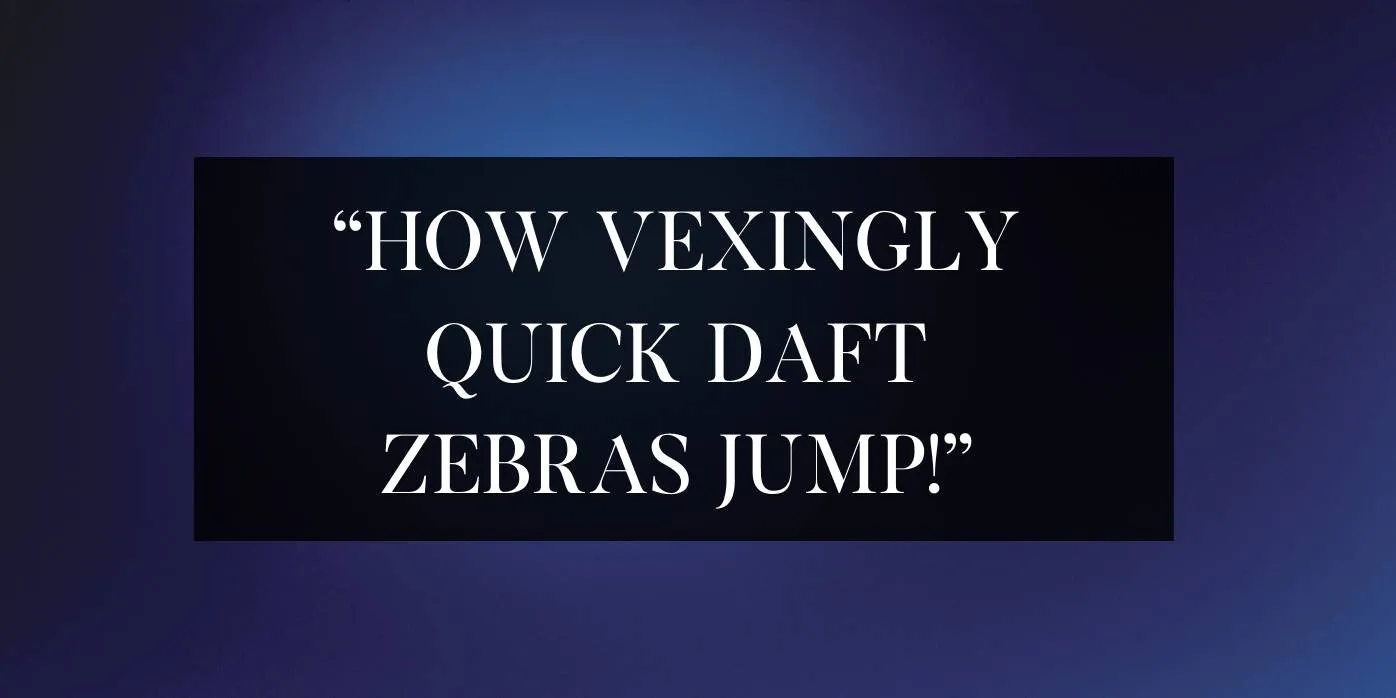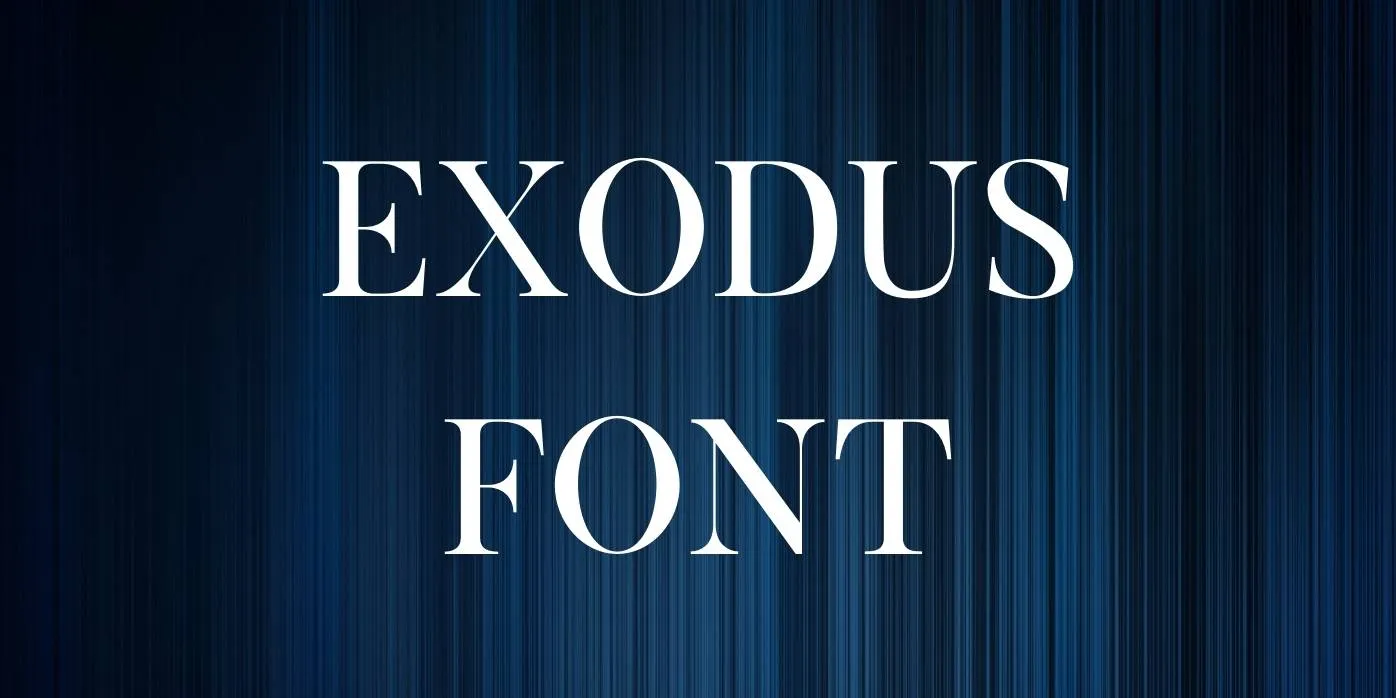
Exodus Font
Exodus Font is very popular and famous in the design industry. It belongs to the Serif typeface. This cozy typeface was designed by Mr. Andrew Herndon.  The first time it was released was on 5th February 2016.
This typeface has a large X-height that makes it perfect for various designs. The best part about this font is that it’s free for both personal and commercial use. This means that you can use it for your website, blog, or even for designing purposes. This stunning typeface has 4 special weights and stylish characters.
It has different keen features. You can also use its similar cochin font for many advanced features. This Exodus Font supports many languages including Latin, Greek, and Cyrillic alphabets. It also has some interesting features like small caps, old-style figures, fractions, and ligatures which help to make your design look more professional.